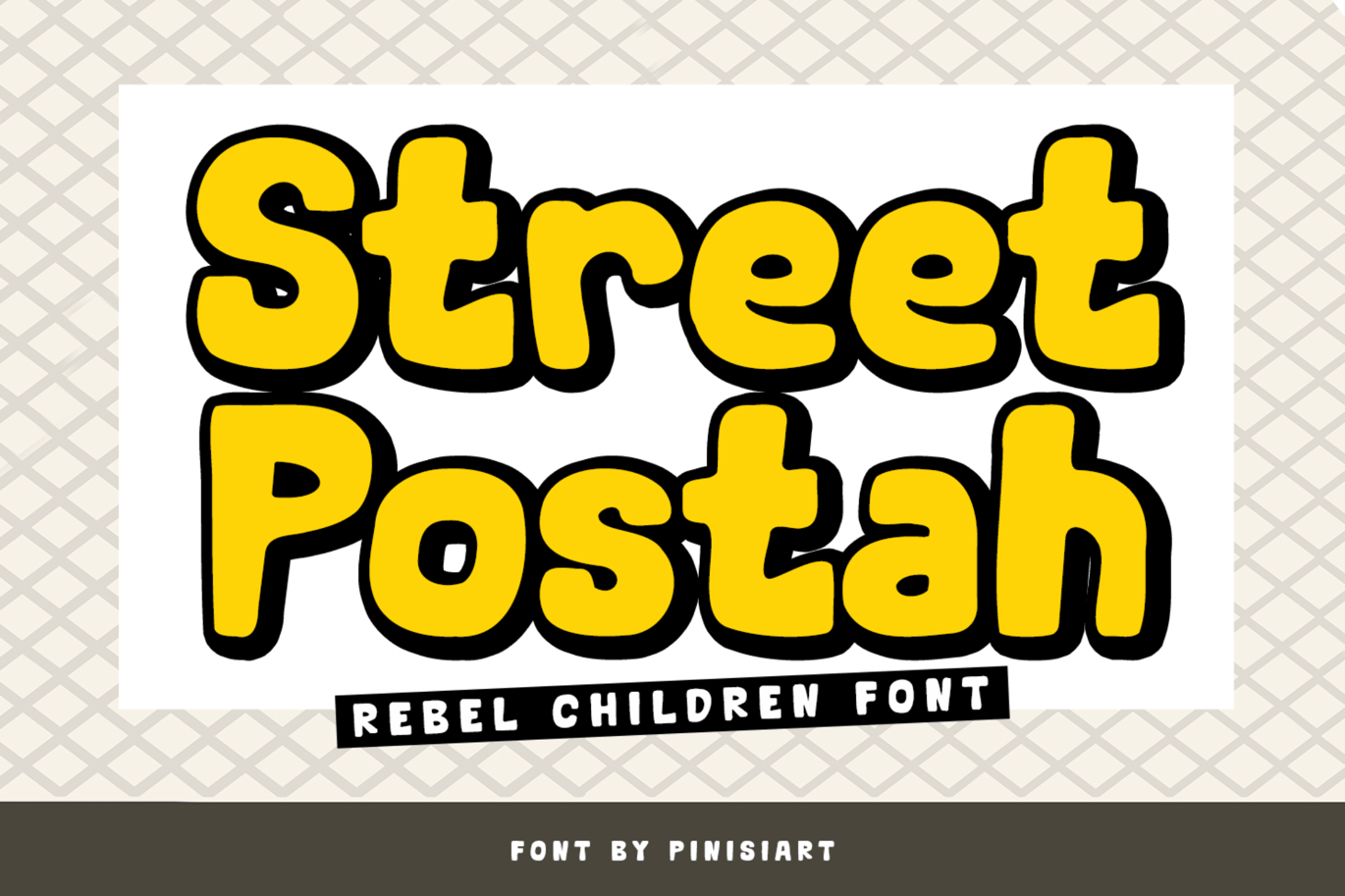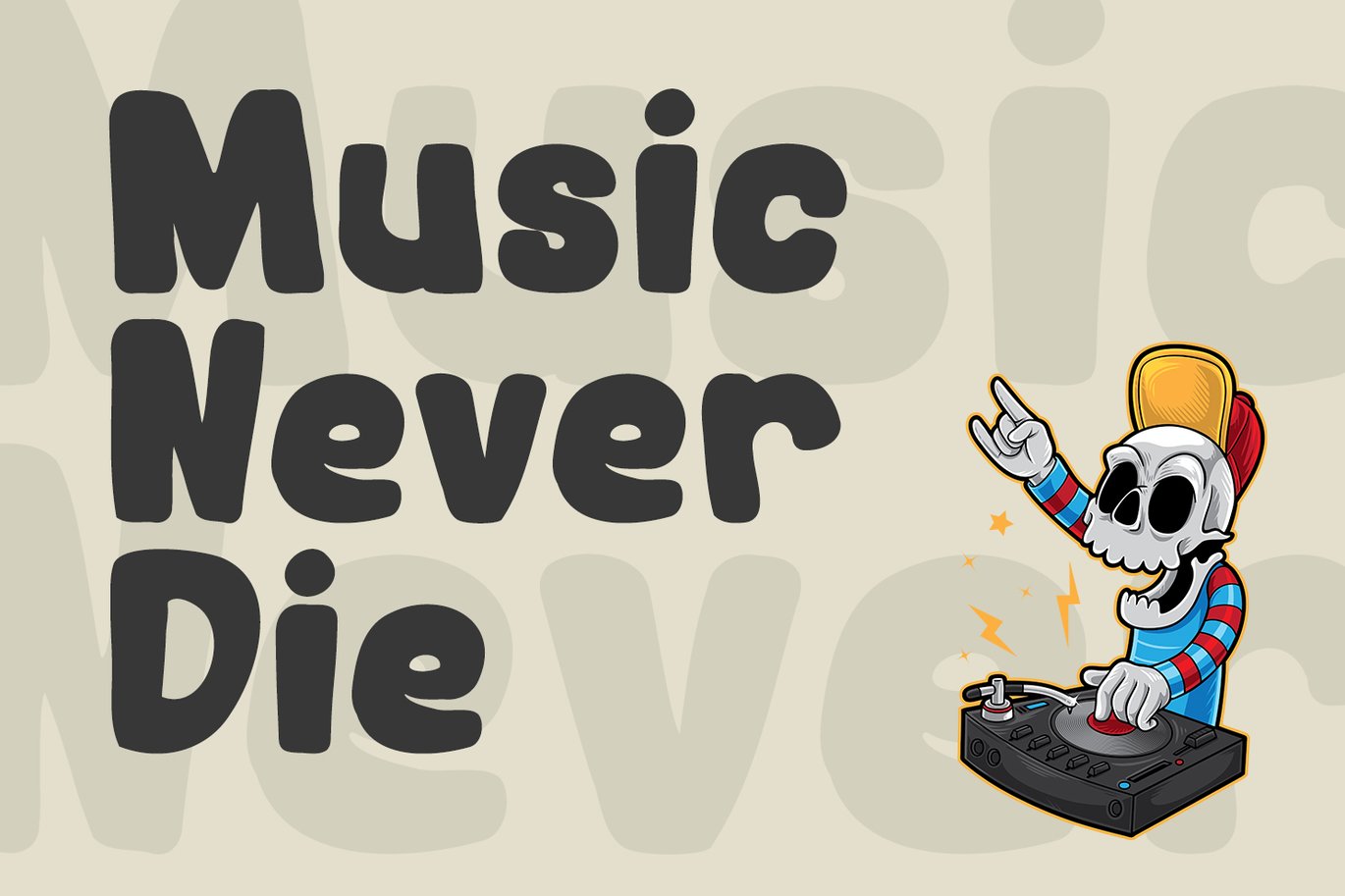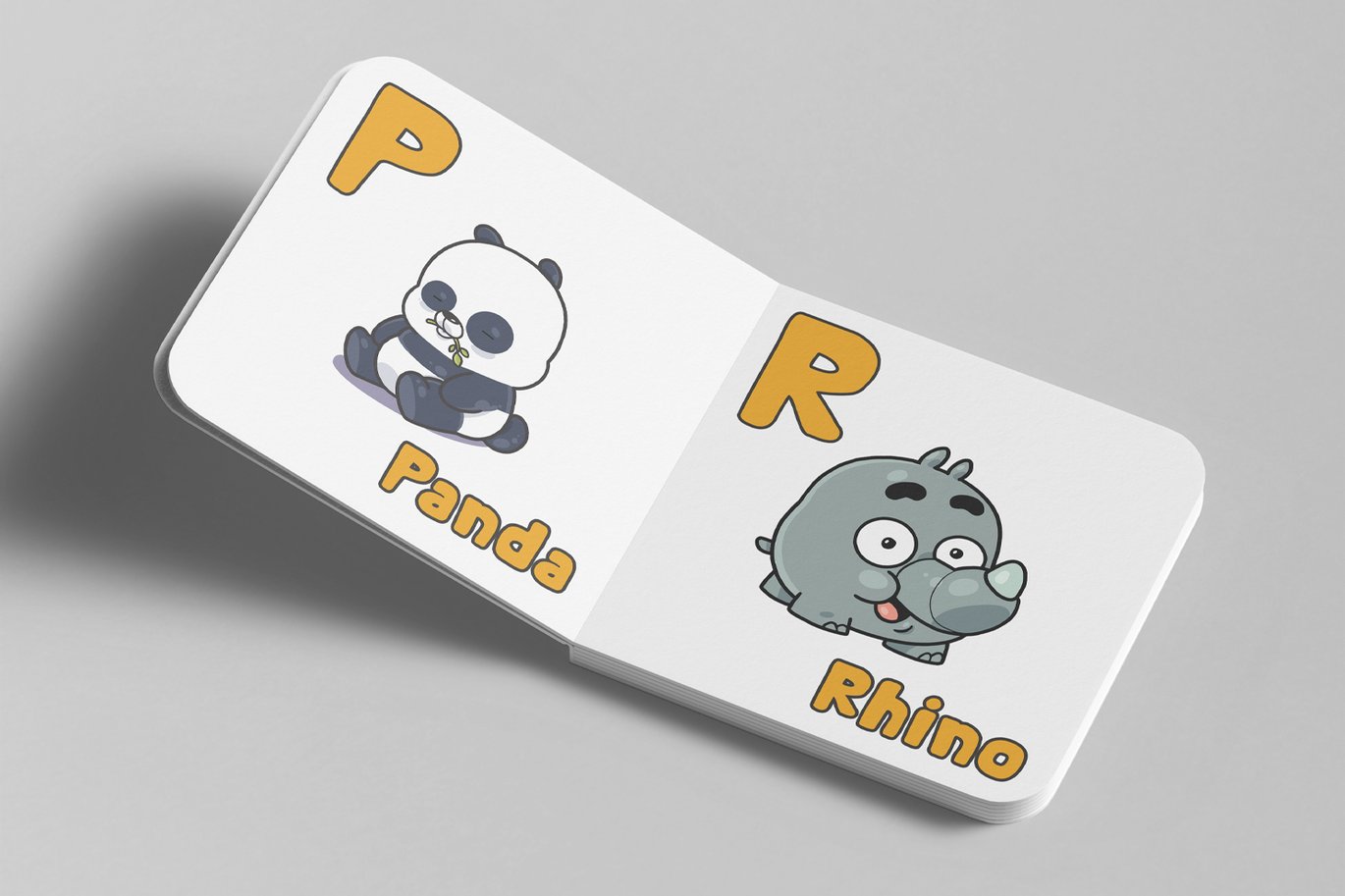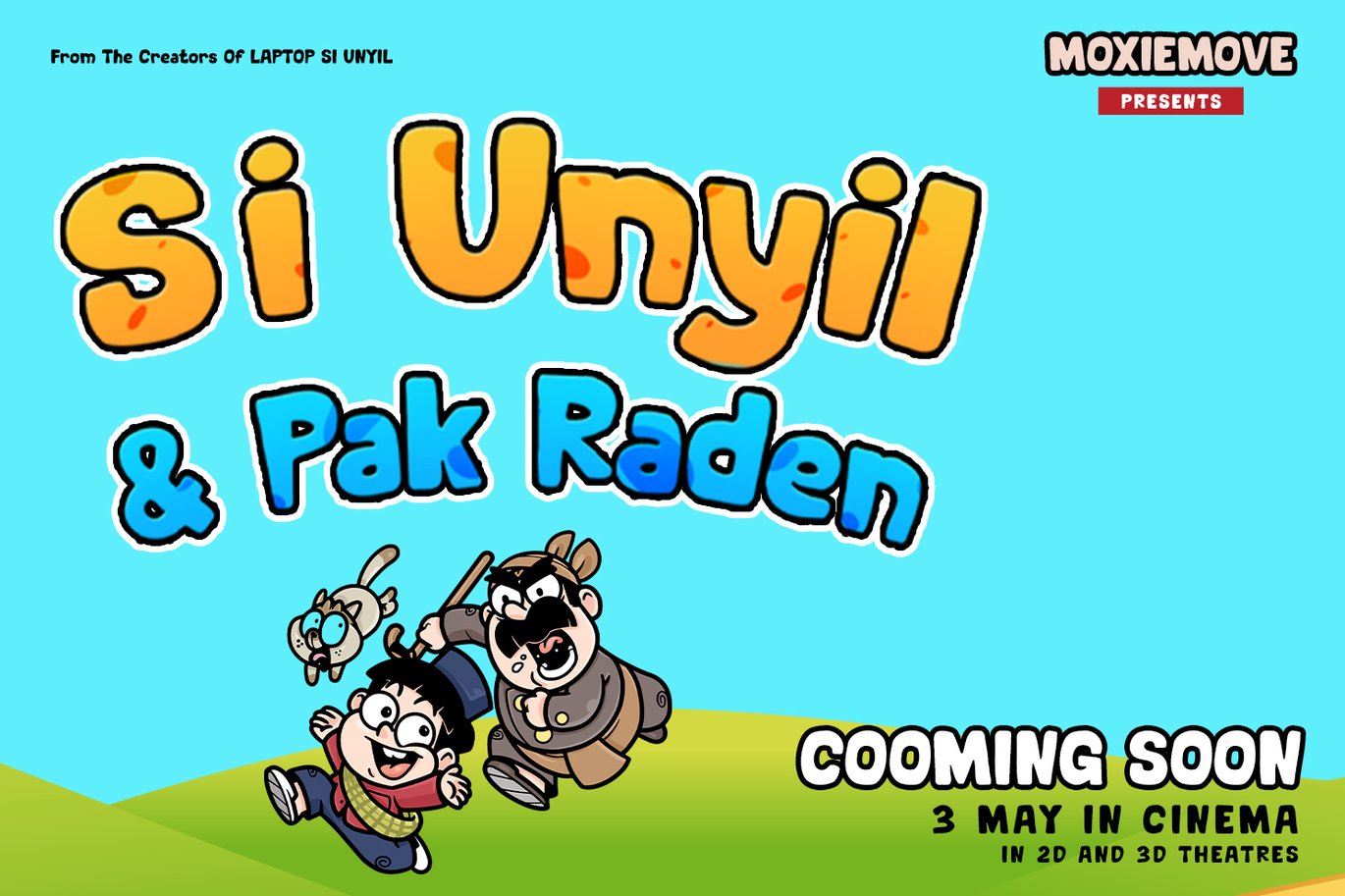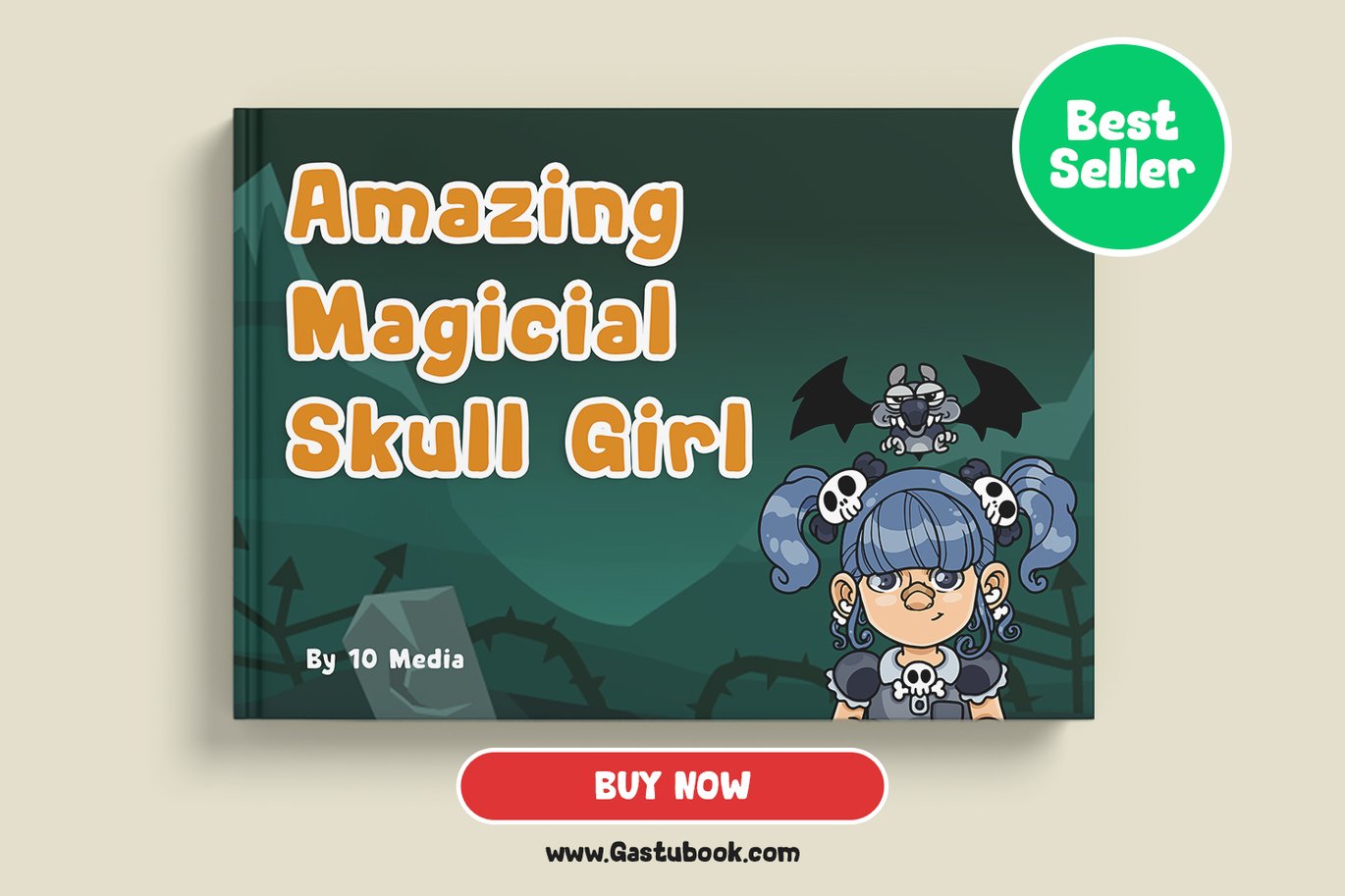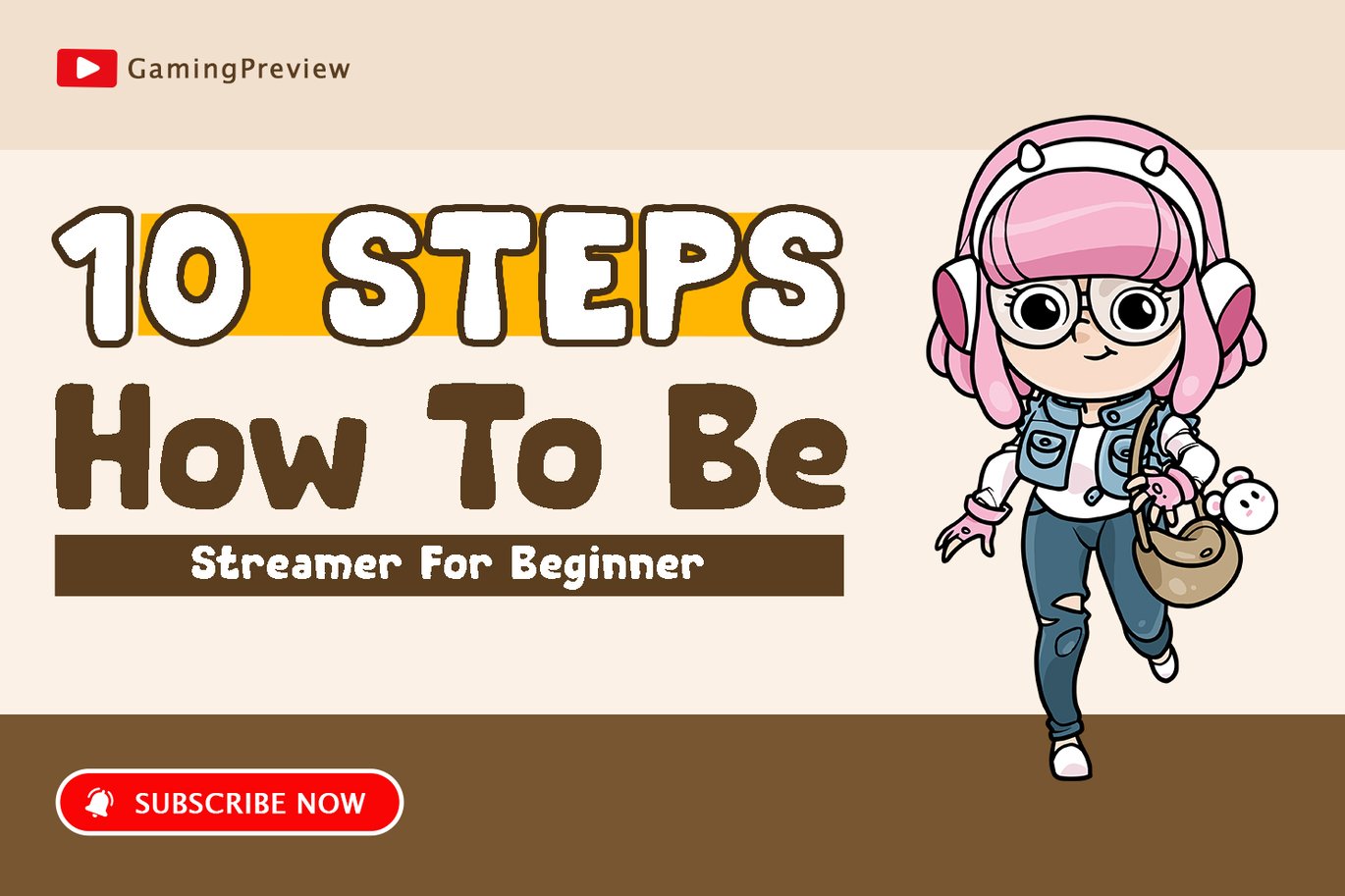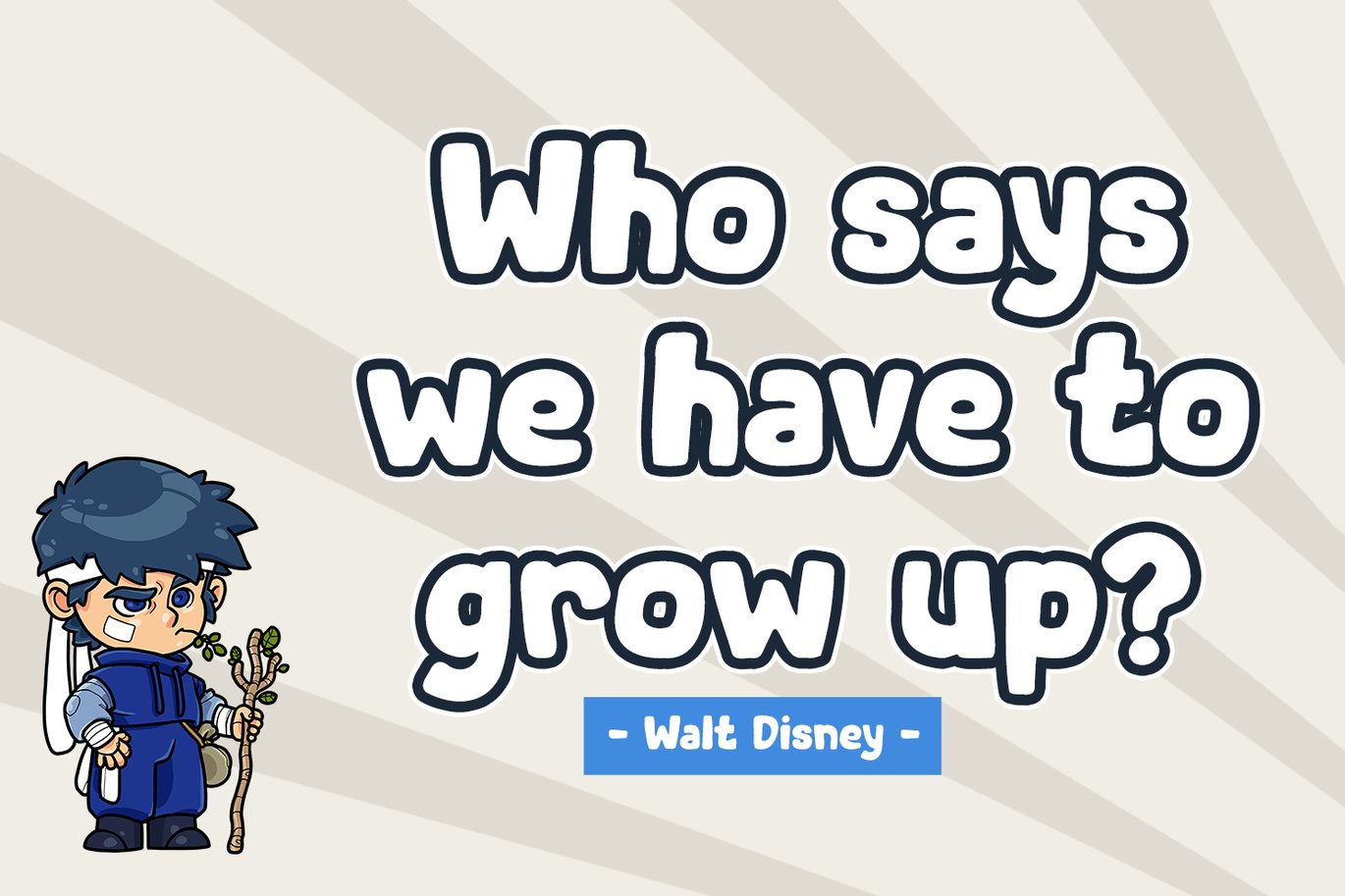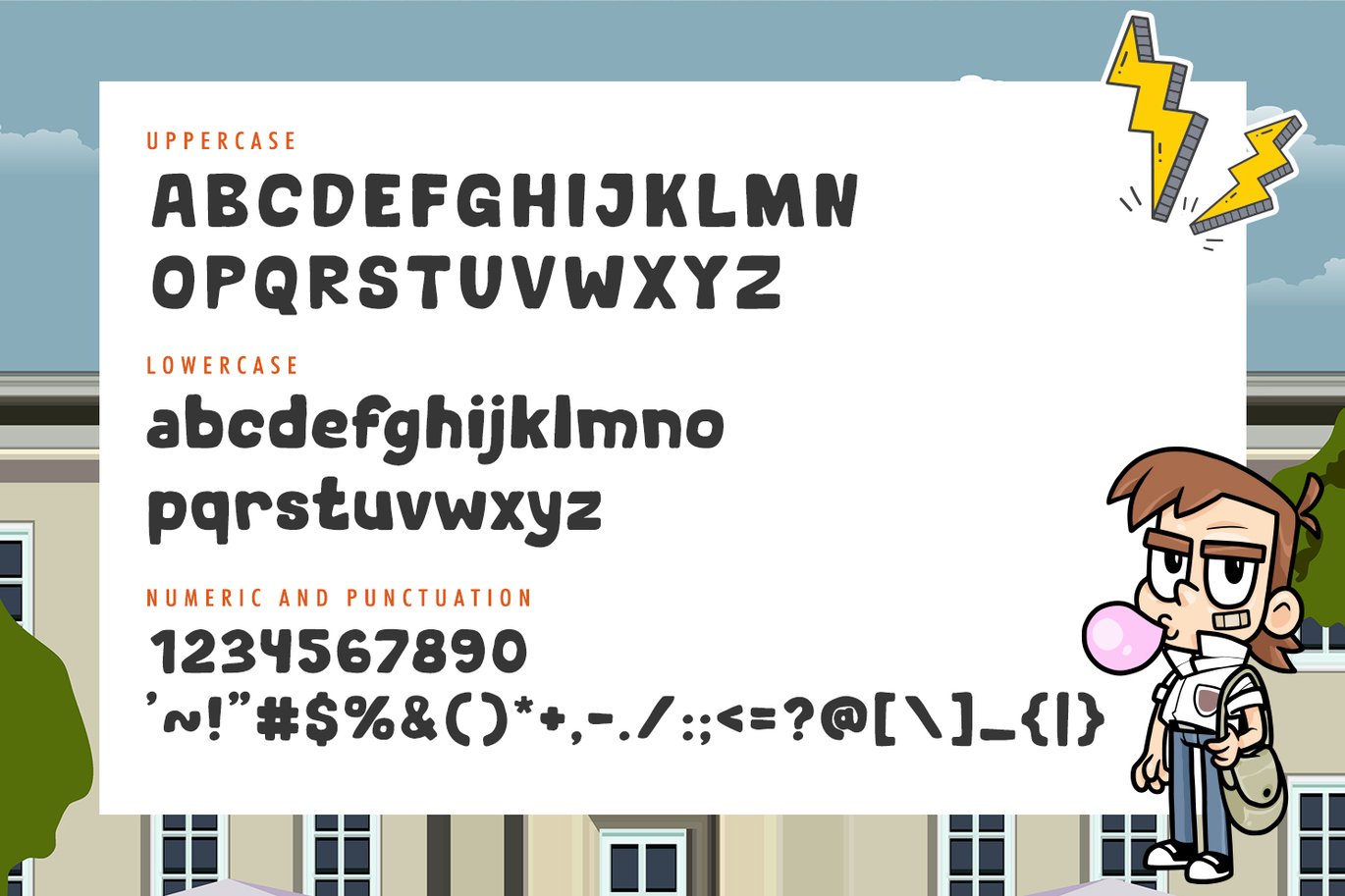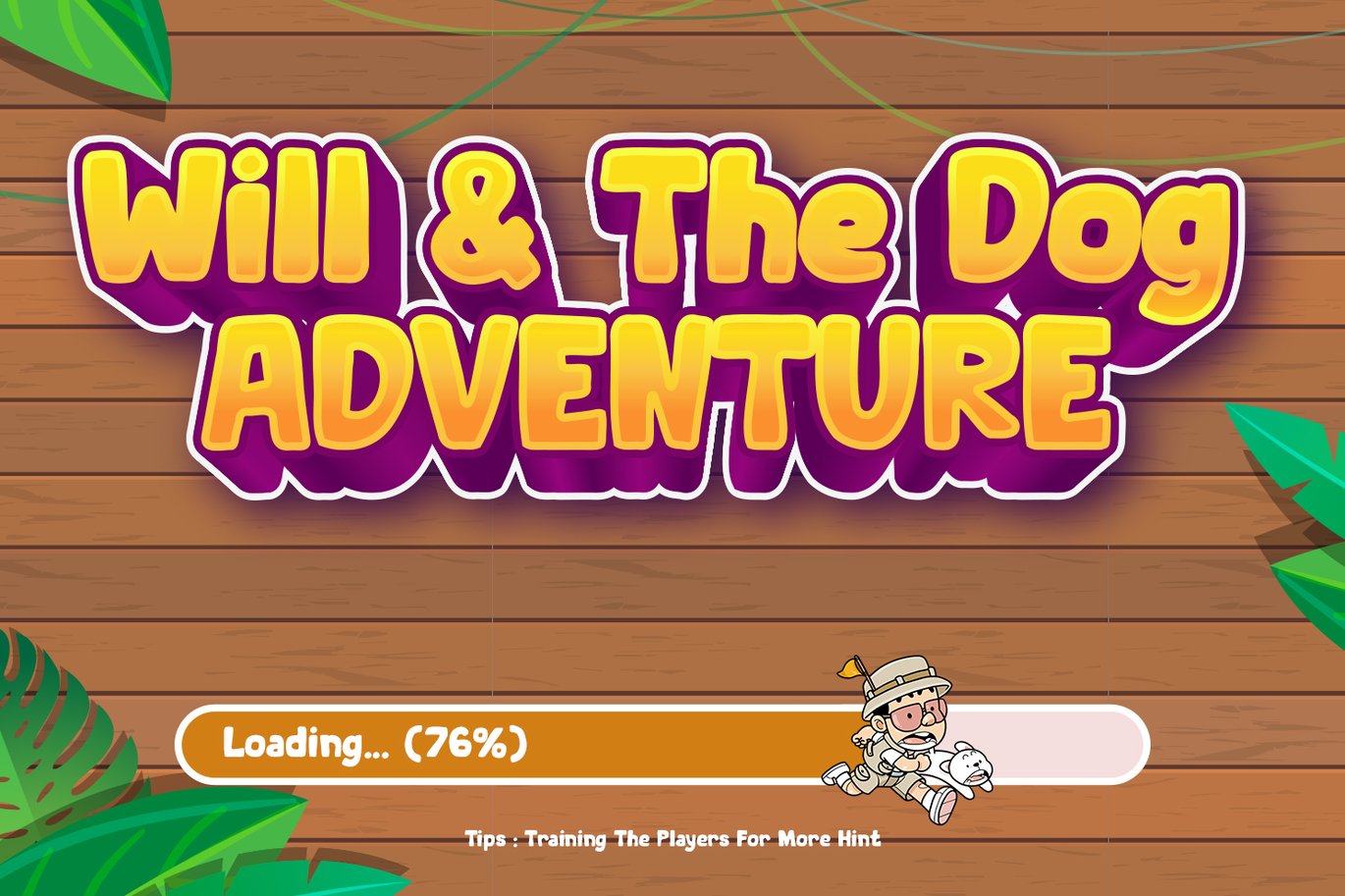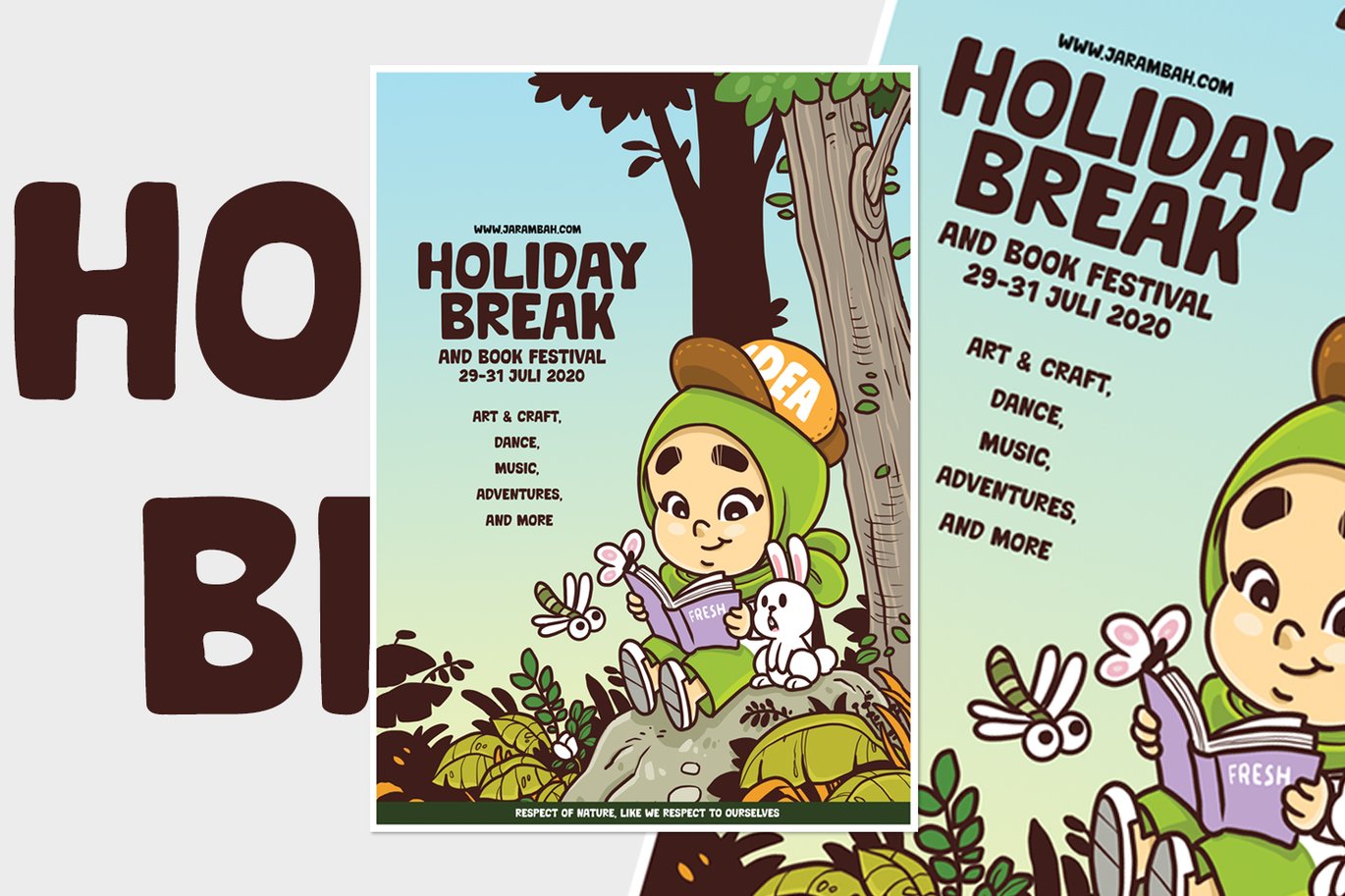
Street Postah – Rebel Kids Font
Cute but rebellious. Street Postah is not your regular kids font.
Suit perfectly for rebel children’s books market, online games, stationery, school supplies font, poster, movie title, youtube covers, youtube thumbnails, social media page covers, and so on…